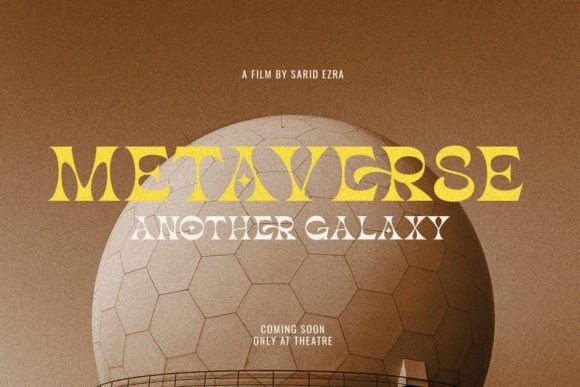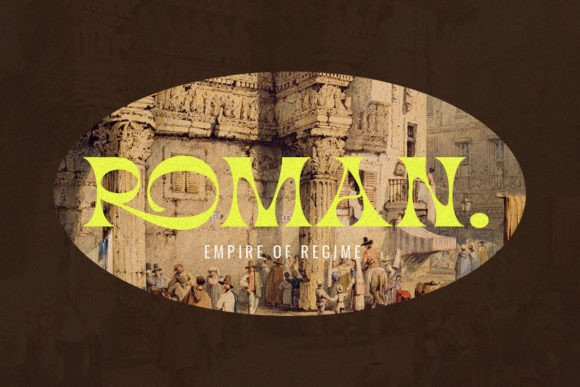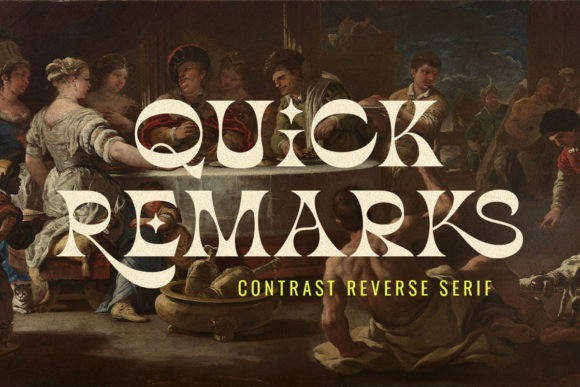
Quick Remarks Font
Quick Remarks Serif Font is a stylish and modern serif font with noticeable contrast. With unique uppercase and lowercase, this font will make your presentations, posters, and logos even more stunning! Add it with confidence to any of your creative projects, and they will capture everyone’s attention!